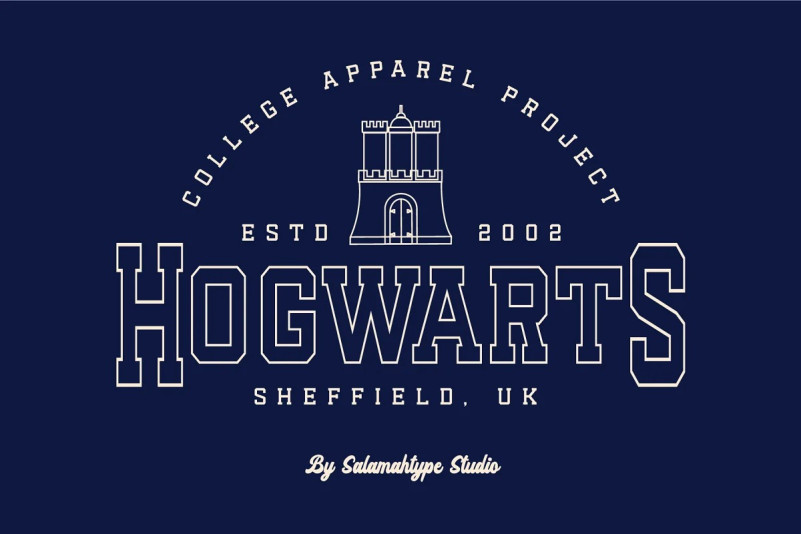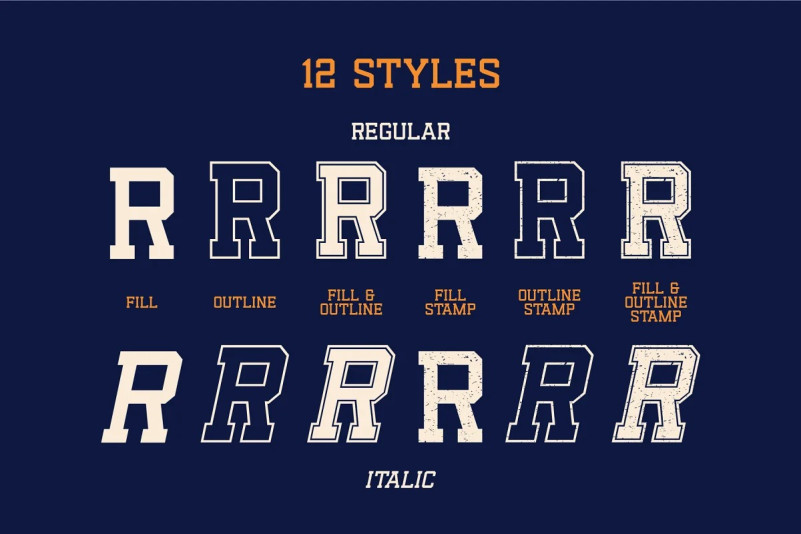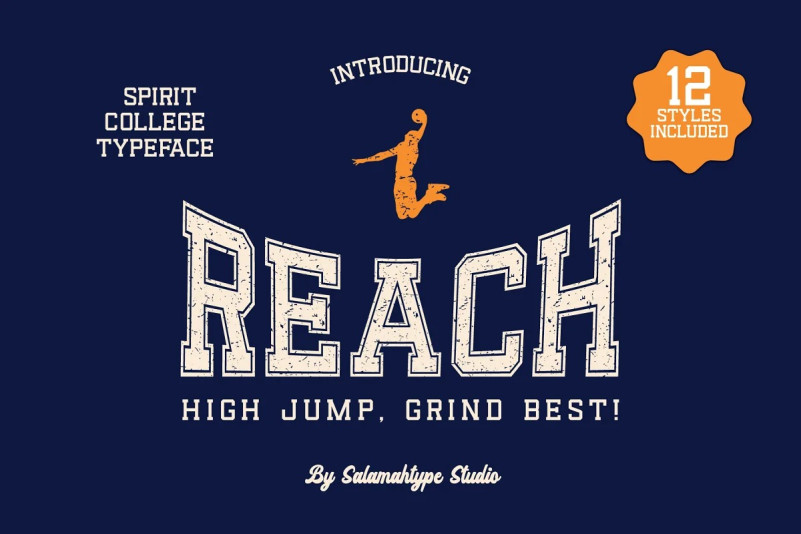
Reach Font
Introducing our font called “REACH” – display typeface with 12 styles included (Fill-Fill Outline-Stamp-Outline). Perfect for branding projects, logos, labels, logotypes and more.
A-Z all caps characters (12 styles) Numbers, Symbols, and Punctuation Multilingual Support If you have any questions, before or after purchase, please feel free to get in touch.